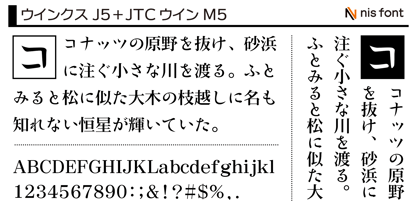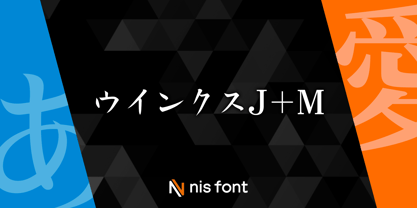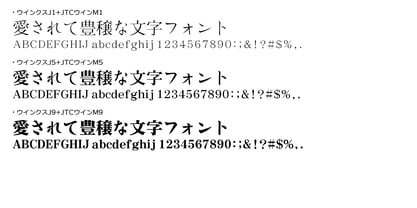
OT-NIS_JM
by NIS Fonts
This is a Mincho typeface with only the kana characters of the "OT-NIS_M Series" rearranged. It conveys a sleek and vibrant impression. Supports the JIS2004 character set.
Foundry: NIS Fonts